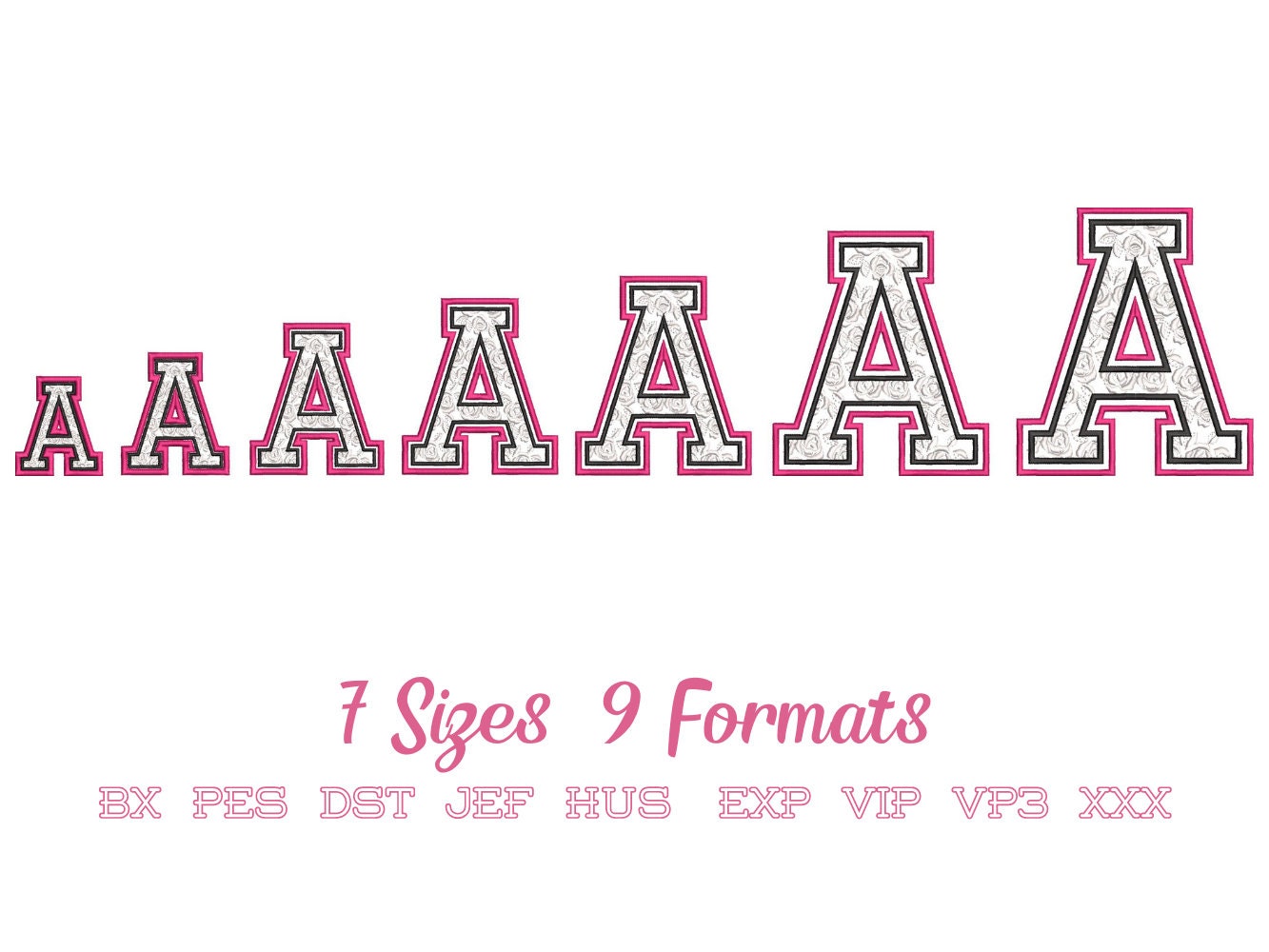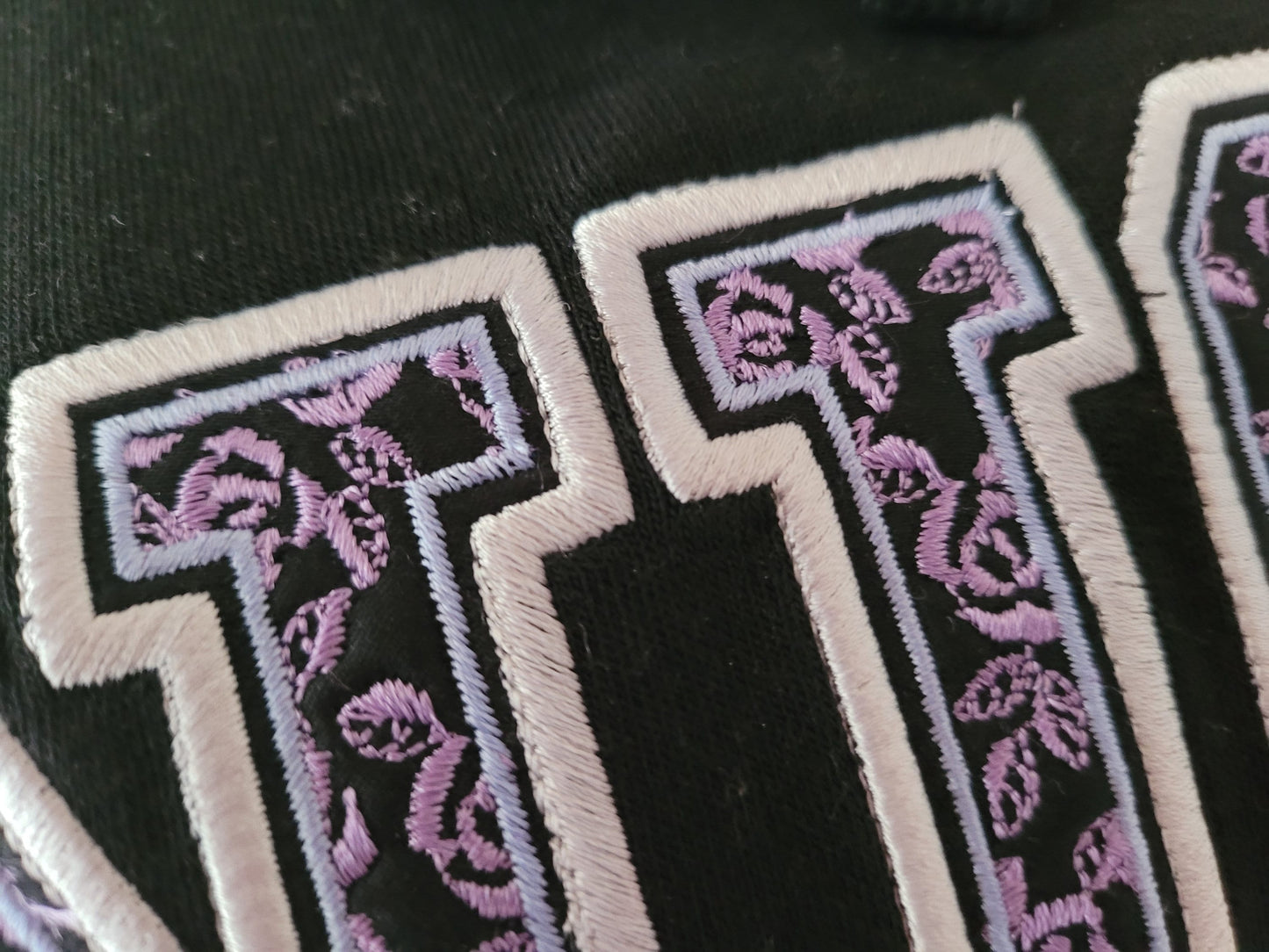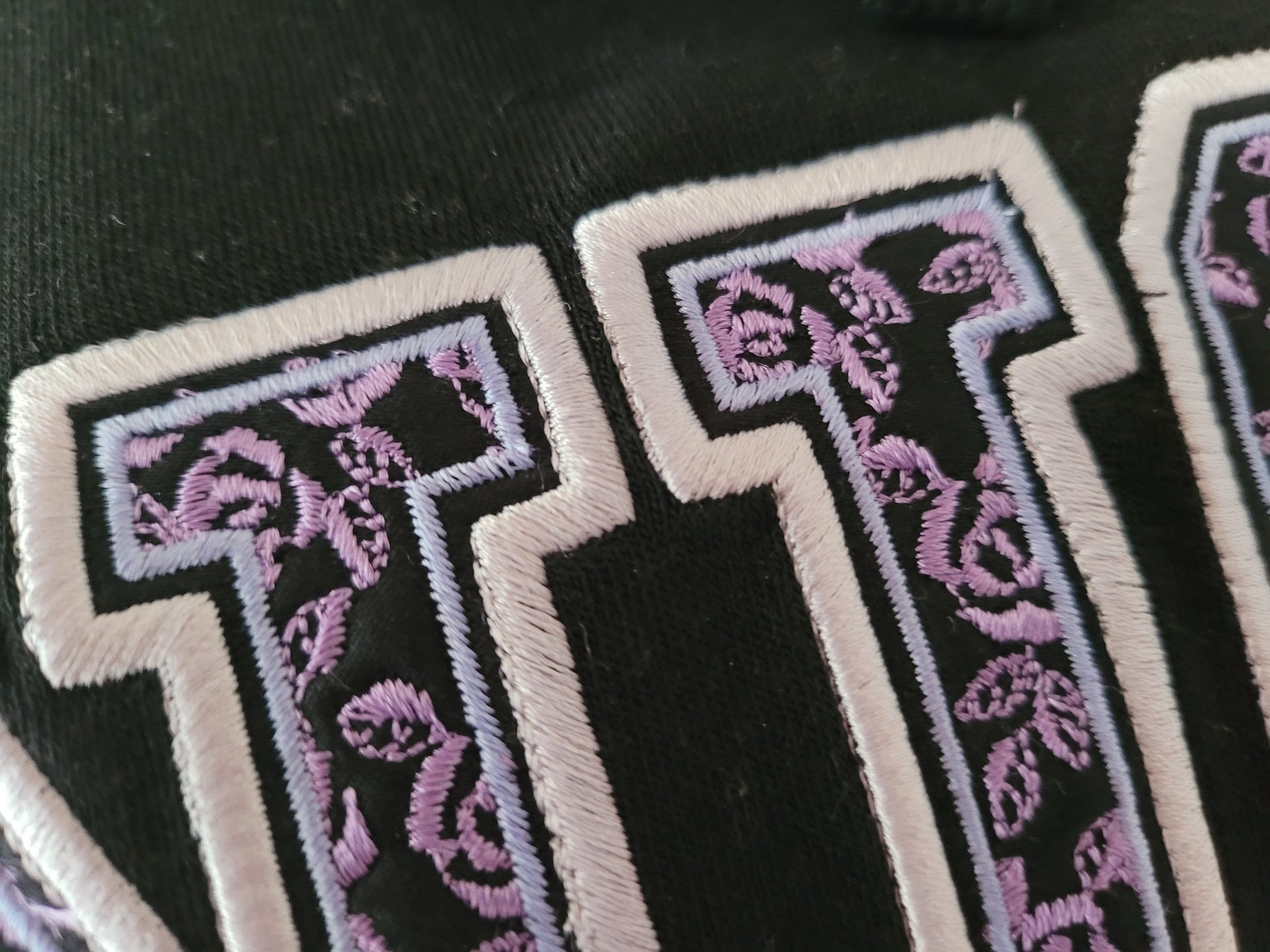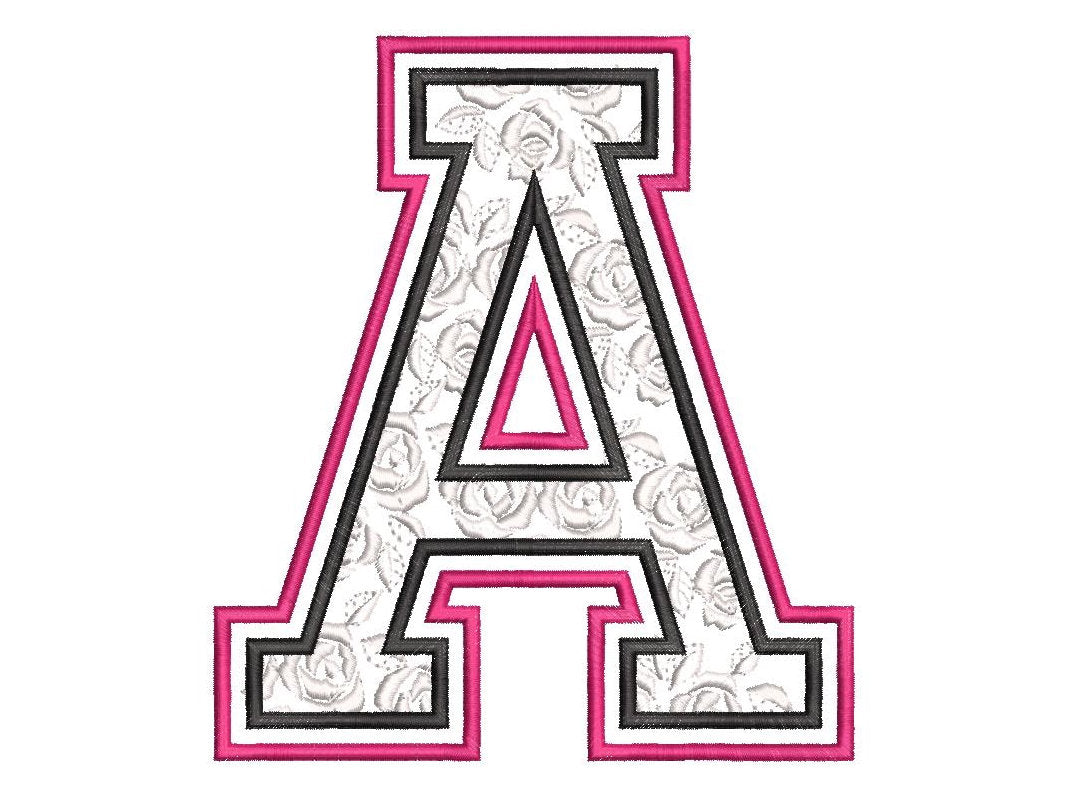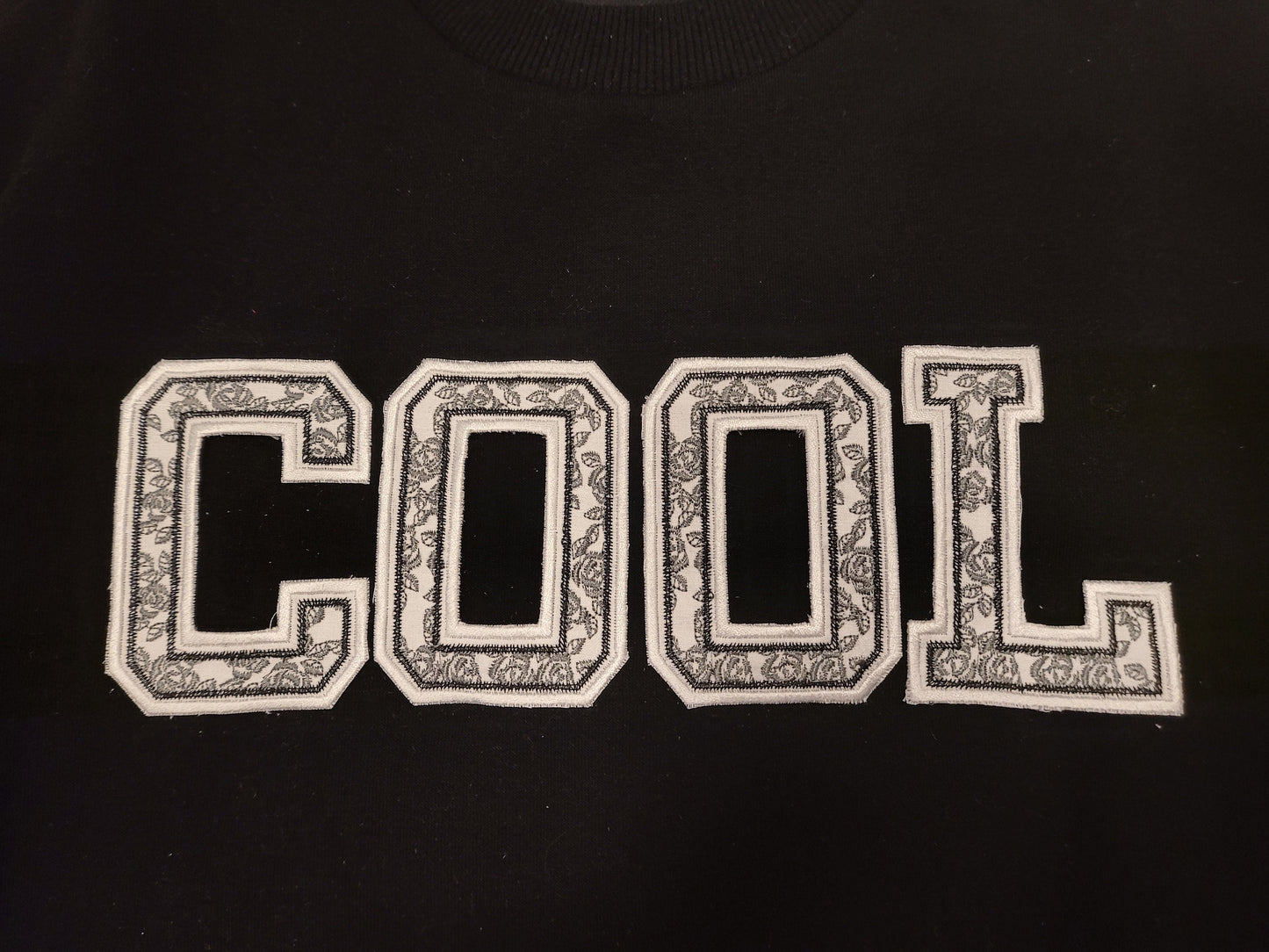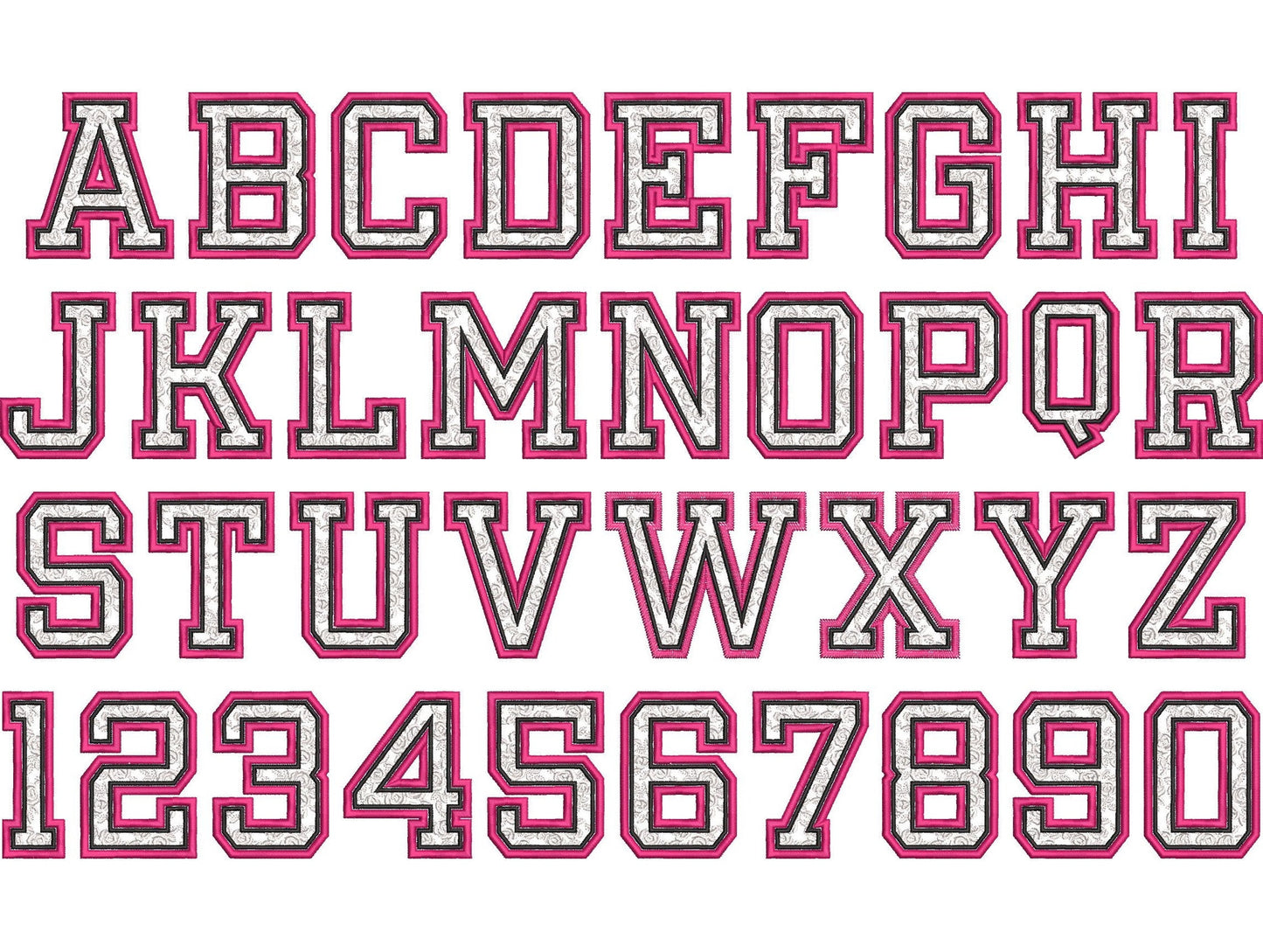
Girls Sport Rose Lace Patterned Font Applique
Uppercase letters A to Z and numbers 0 to 9 in eight sizes: 2.5, 3.1, 3.9, 4.5, 5.1, 5.9, 6.3 and 7 inches. The lacy stitching lets the fabric show through.
- Rose lace sport applique font
- Uppercase A-Z, numbers 0-9
- 8 sizes, 2.5 to 7 in